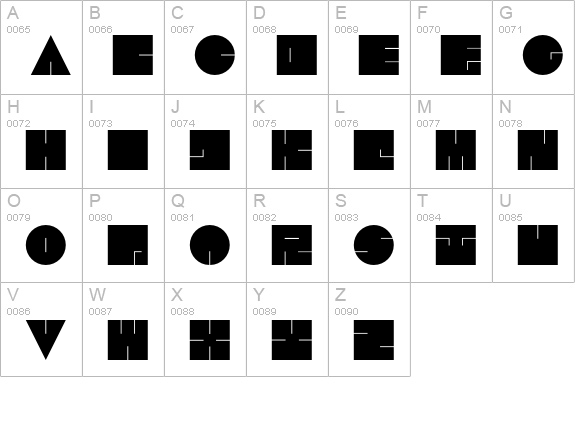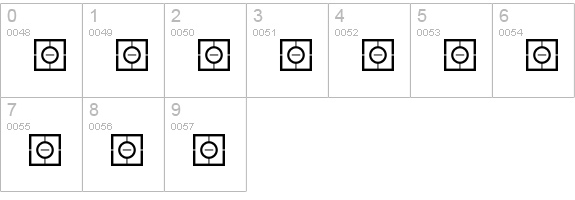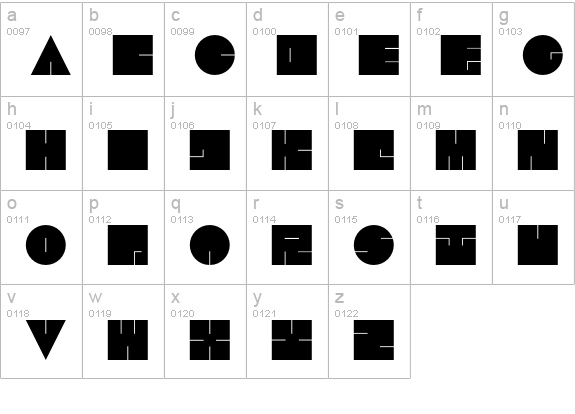
AlphaBloc-Sculpture Font Details
Introducing AlphaBloc-Sculpture font, a captivating and unique typeface that combines elements of sculpture and modern design. This font features bold and intricate letterforms that are reminiscent of carved stone, giving your projects a distinctive and artistic flair. AlphaBloc-Sculpture font is perfect for adding a touch of elegance and sophistication to your designs, whether you're working on branding, packaging, invitations, or any other creative project. Its striking appearance is sure to make a lasting impression on your audience. What's even better is that AlphaBloc-Sculpture font is completely free to download at FontsMarket.com. This means you can elevate your designs without breaking the bank. Don't miss out on this opportunity to enhance your creative work with the beauty and charm of AlphaBloc-Sculpture font. Download it today and let your creativity shine!